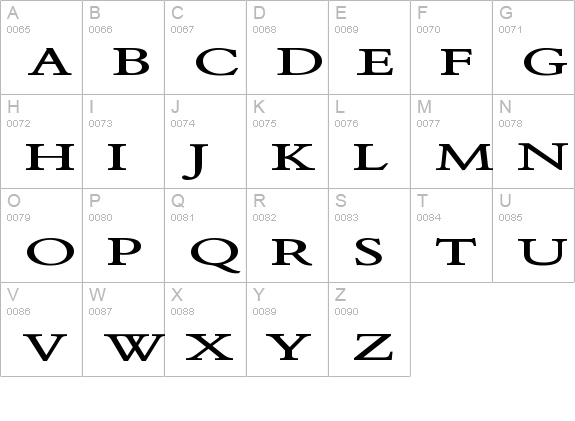
Nadine 2 Extended Bold is a strong, high-contrast, extended-width variant in the Nadine typeface family \xE2\x80\x94 well suited to headlines, attention-grabbing titles, and strong calls-to-action.
Nadine 2 Extended Bold font is a modern and stylish typeface that exudes confidence and sophistication. With its sleek lines and bold presence, this font is perfect for making a statement in your designs. The extended version of Nadine 2 offers even more impact and visual appeal, making it a versatile choice for headlines, posters, logos, and more. Best of all, Nadine 2 Extended Bold is available for free download at FontsMarket.com, allowing you to access this high-quality font without any cost. Don't miss out on the opportunity to enhance your projects with the striking aesthetics of Nadine 2 Extended Bold. Download it today and elevate your designs to the next level.